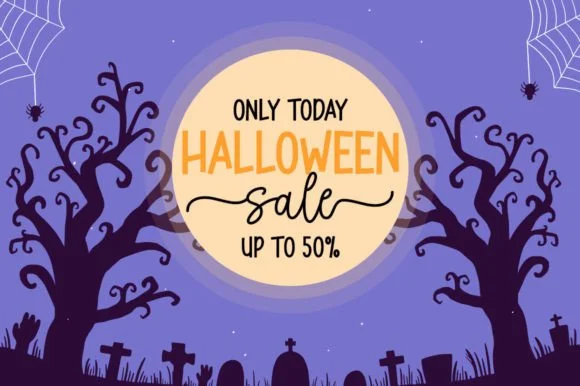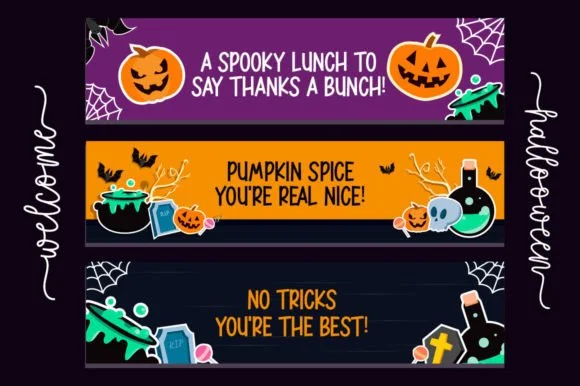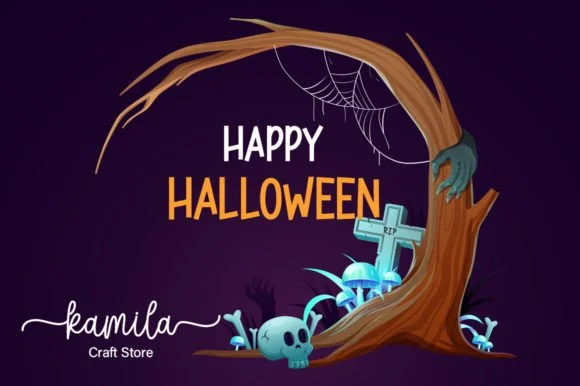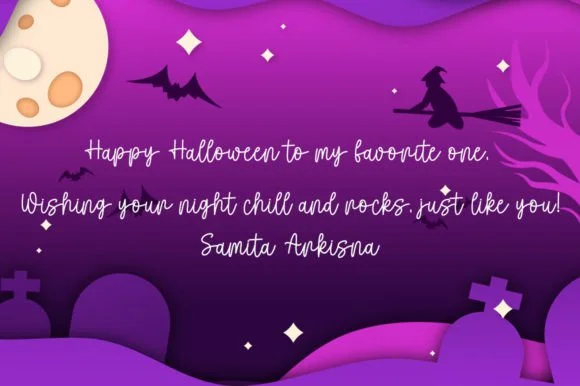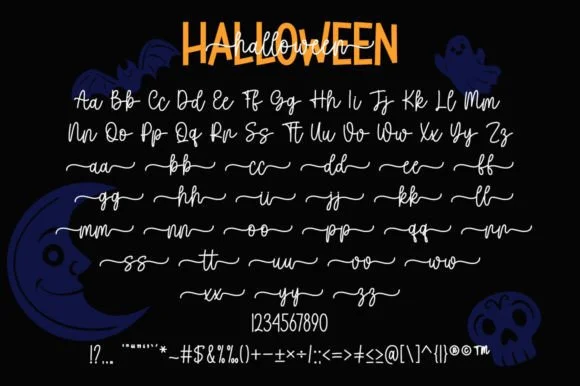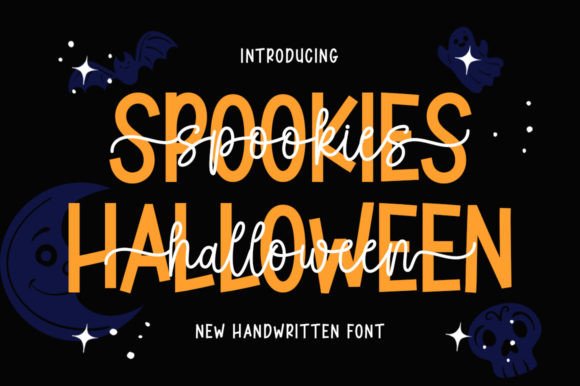
Spookies Halloween Font
This playfully spooky font is perfect for family Halloween parties, cute spooky decorations, friendly Halloween invitations, playful ghost celebrations, adorable monster parties, sweet Halloween treats branding, charming Halloween crafts, gentle spooky events, family-friendly Halloween marketing, and delightfully spooky Halloween messaging materials.
Spookies Halloween Font is exciting because it transforms traditional Halloween frights into adorable and approachable spookiness through its playfully crafted letterforms that capture the sweet charm of friendly ghosts, cute monsters, and lovable spooks that make Halloween accessible and enjoyable for everyone. The font features rounded, endearing characters with spooky proportions and charming details that evoke the delightful world of Halloween creatures who are more interested in making friends than causing genuine scares, incorporating gentle floating flourishes and sweet spooky elements that create typography as lovable and huggable as plush Halloween toys. Each letter showcases the perfect balance between supernatural themes and innocent charm that makes spookies such beloved characters in family Halloween celebrations, with soft curves and friendly accents that transform ordinary text into expressions of gentle Halloween magic that prove spooky can be absolutely adorable and wonderfully welcoming rather than genuinely frightening.
The Spookies Halloween Font family includes playfully spooky variations: Regular, Bold, Light, Cute, and Friendly versions. The collection features special spookies elements including ghost accents, monster details, cute flourishes, and adorable ornaments. Additional components include spooky borders, cute frames, friendly decorations, and charmingly spooky ornamental designs that enhance the font's spookies Halloween appeal and create cohesive family-friendly spooky themes.
Family event organizers and cute Halloween enthusiasts will find Spookies Halloween Font to be a perfect resource for creating delightfully approachable Halloween communications that celebrate the sweet, family-friendly side of spooky without sacrificing the magical supernatural atmosphere that makes Halloween so special. This charmingly crafted font transforms ordinary Halloween messaging into spookies expressions that resonate with families seeking Halloween celebrations that are both magically spooky and wonderfully safe for children of all ages.
The typeface includes comprehensive character support with friendly spooky styling that maintains excellent readability while conveying the sweet charm and gentle spookiness of family-friendly Halloween celebrations. The font's adorable design ensures delightfully spooky results across both children's Halloween applications and family-oriented spooky productions.
Perfect for family Halloween parties, cute spooky celebrations, children's Halloween events, and charmingly friendly seasonal marketing, this font delivers adorably spooky visual impact that communicates gentle magic, sweet spookiness, and the delightful truth that Halloween spookies can be both supernatural and absolutely charming for families seeking friendly Halloween fun.